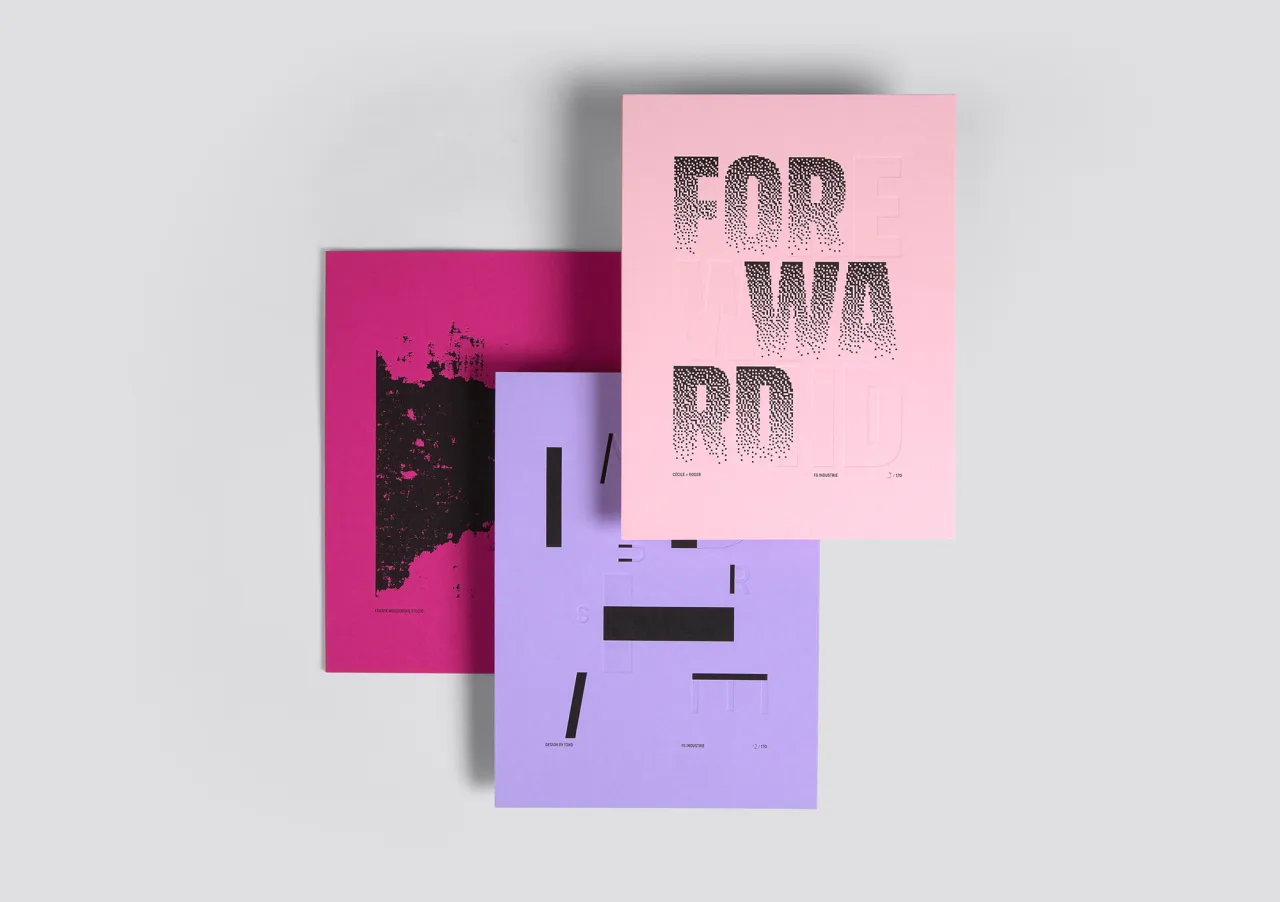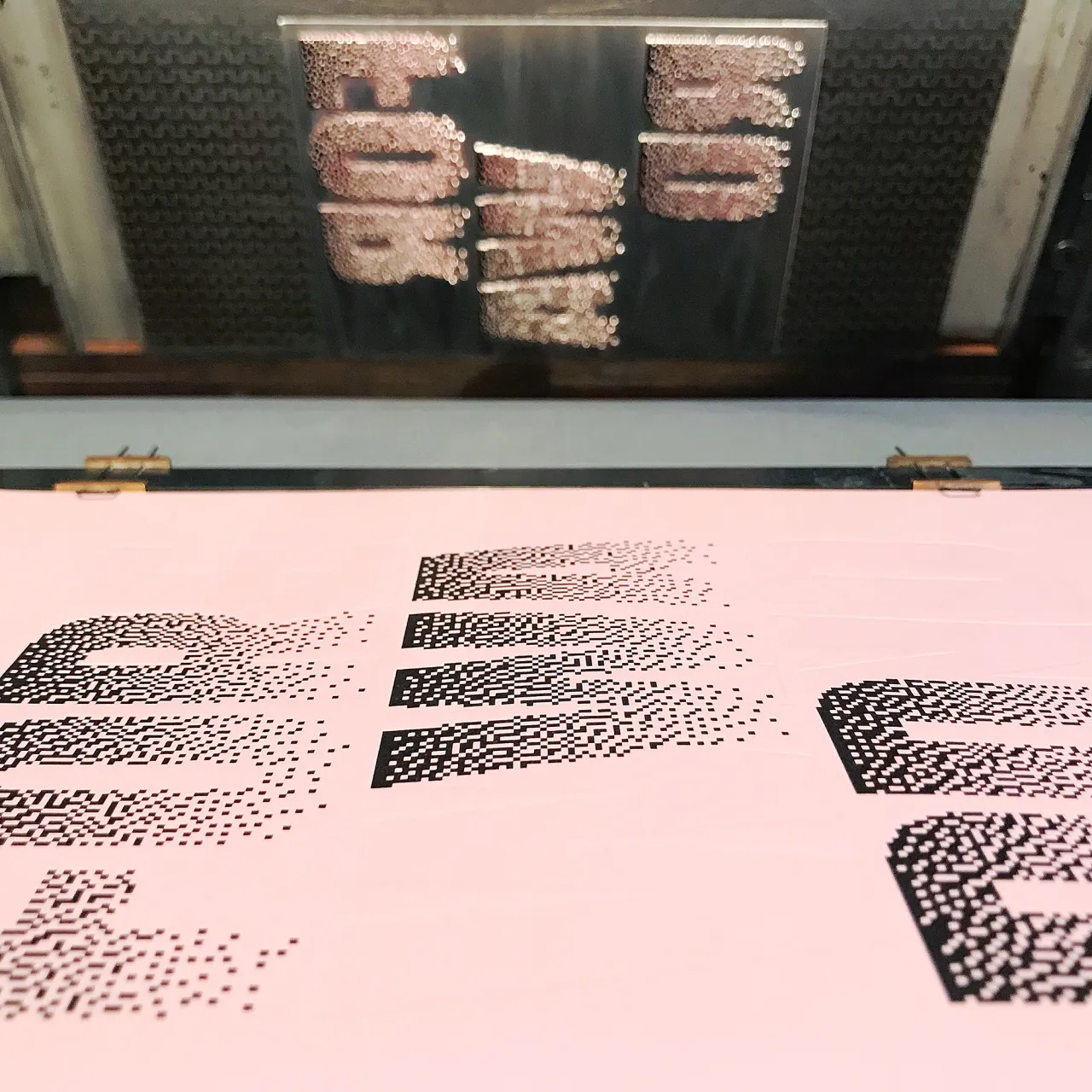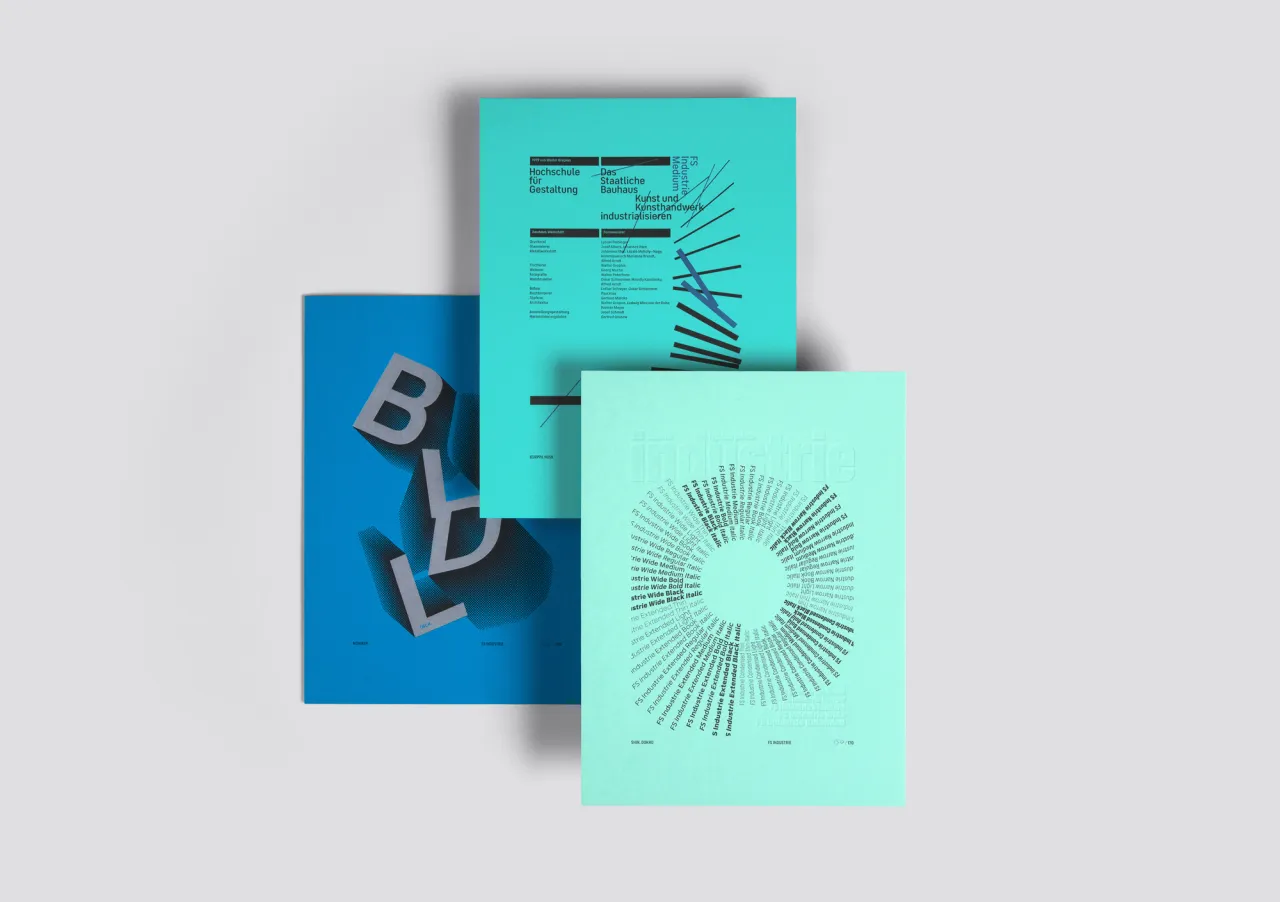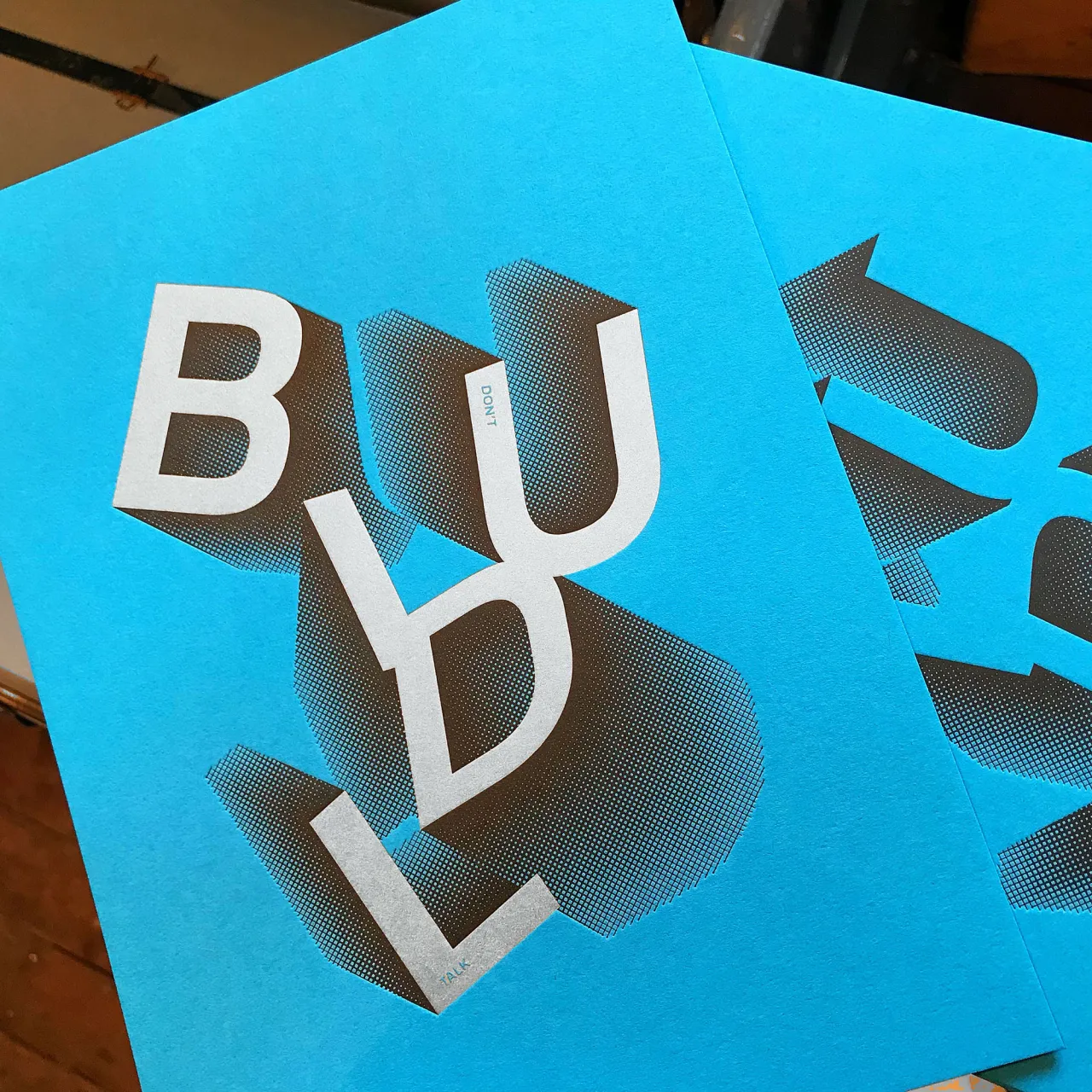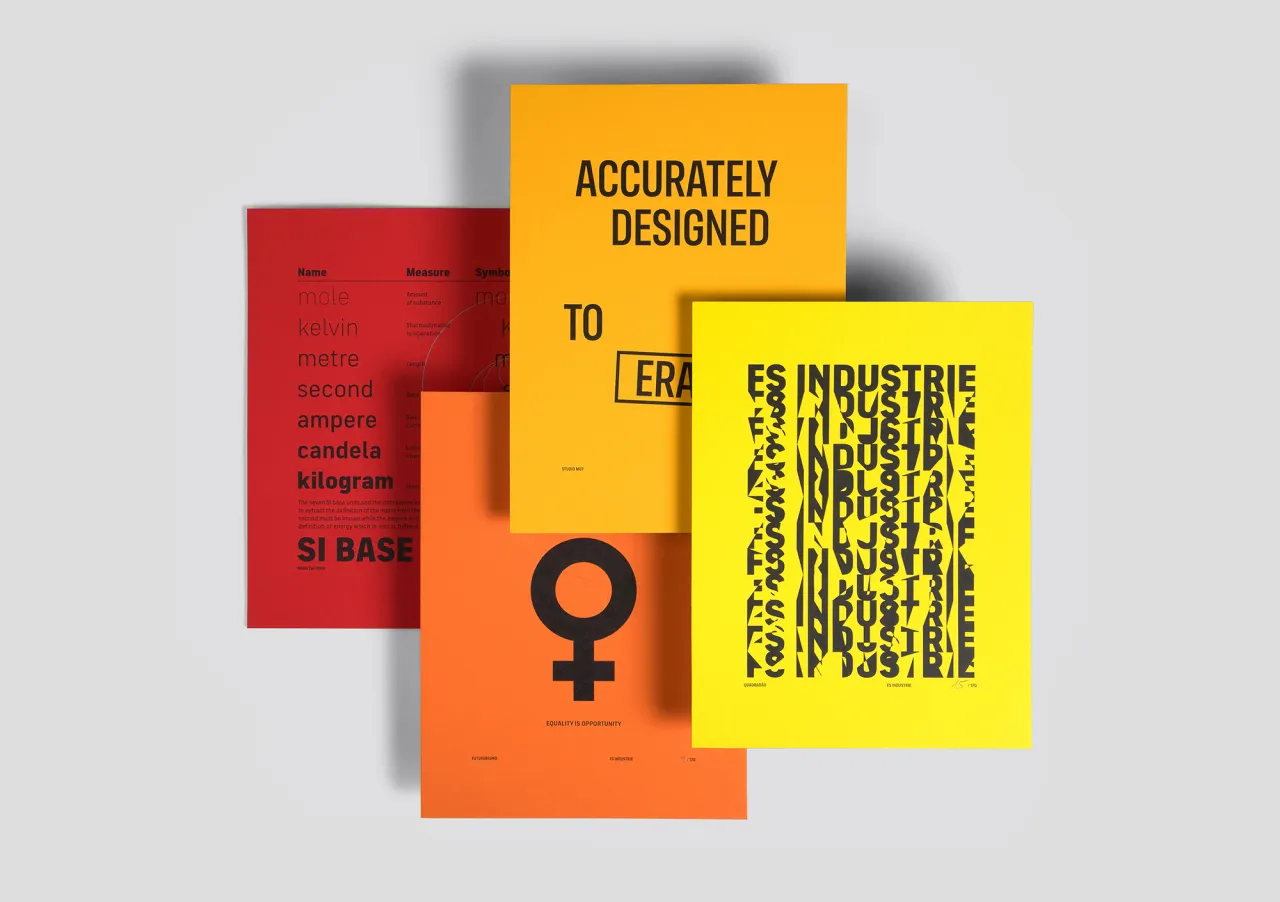
FS Industrie: Fontsmith launches brand new adaptive type system
Type foundry Fontsmith has launched FS Industrie, a new adaptive type system designed around five different widths and seven different weights, creating a total of 70 different variants (including italics).
Fontsmith’s type design director Phil Garnham provides some context behind the new release: “We are on the cusp of a new age in digital typeface design where the ability to vary a font’s weight and width axis offers limitless possibilities to graphic designers within any given space.”
Much has been said about truly variable fonts since the idea was first introduced in September 2016. Yet fast-forward 18 months and the technology is still in development. As well as new fonts, designers will need rendering engines, browsers and design tools, all working together to deliver on the promise offered by variable type. Until that happens, FS Industrie shows us the future.
Inspired by classic German fonts from the 1930s, FS Industrie has a precise and direct feel but, in typical Fontsmith style, without ever sacrificing its humanity. Designed by Phil Garnham and Fernando Mello, it has a classic sense of functional utility delivered with a progressive view of where type is heading.
Crucially in the design of FS Industrie, each width and weight is drawn by hand. Variable type requires both a systematic approach and a focus on craft. Terminals that are closed in the condensed glyphs open out in the wider widths. The design adapts as it moves across the system, ensuring each variant can play to its unique strengths while also pairing perfectly with its siblings.
The project began with the Fontsmith design team asking some fundamental questions about the role fonts might play in these new platforms. They also considered how designers might use typography in more interesting ways across the full range of brand and marketing communications, not just in digital and screen-based media. Phil added: “It is the spirit of variable design and flexibility that drove us to create FS Industrie. A response to the changing nature of type, for brands that are responding to the changing nature of work”.